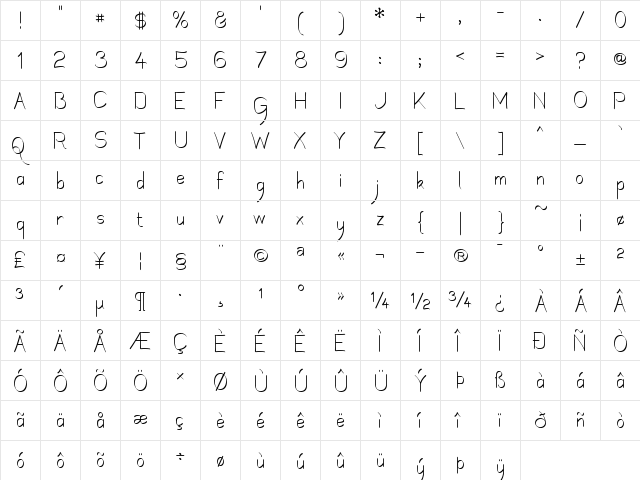
Mechanihan Ribbon Regular
| Designer | Graham Meade |
Design Context for Mechanihan Ribbon Typeface
Mechanihan Ribbon offers clean, dependable letterforms without strong stylistic allegiance, making it a practical choice for designers who need flexibility.